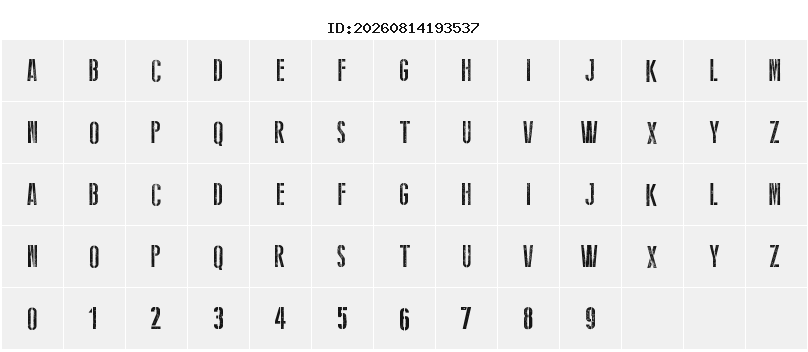
Stencil WW II Preview
• Font Name: Stencil WW II
• Font ID: Stencil WW II:Version 1.00
• Full Font Name: Stencil WW II
• Version: Version 1.00 January 9, 2015, initial release
• PostScript Name: StencilWWII
• Designer: © Galdino Otten
• Manufacturer: Galdino Otten
About Stencil WW II.ttf
Stencil WW II.ttf is a modern, elegant sans-serif font designed for ultimate readability and visual harmony. Perfect for branding, headlines, web design, and print materials.